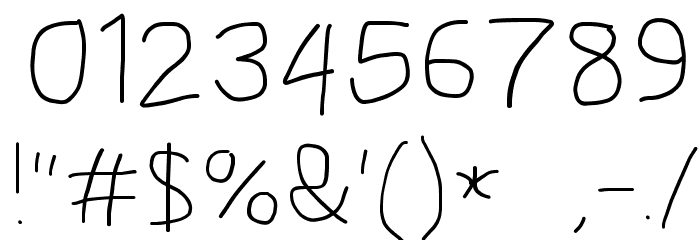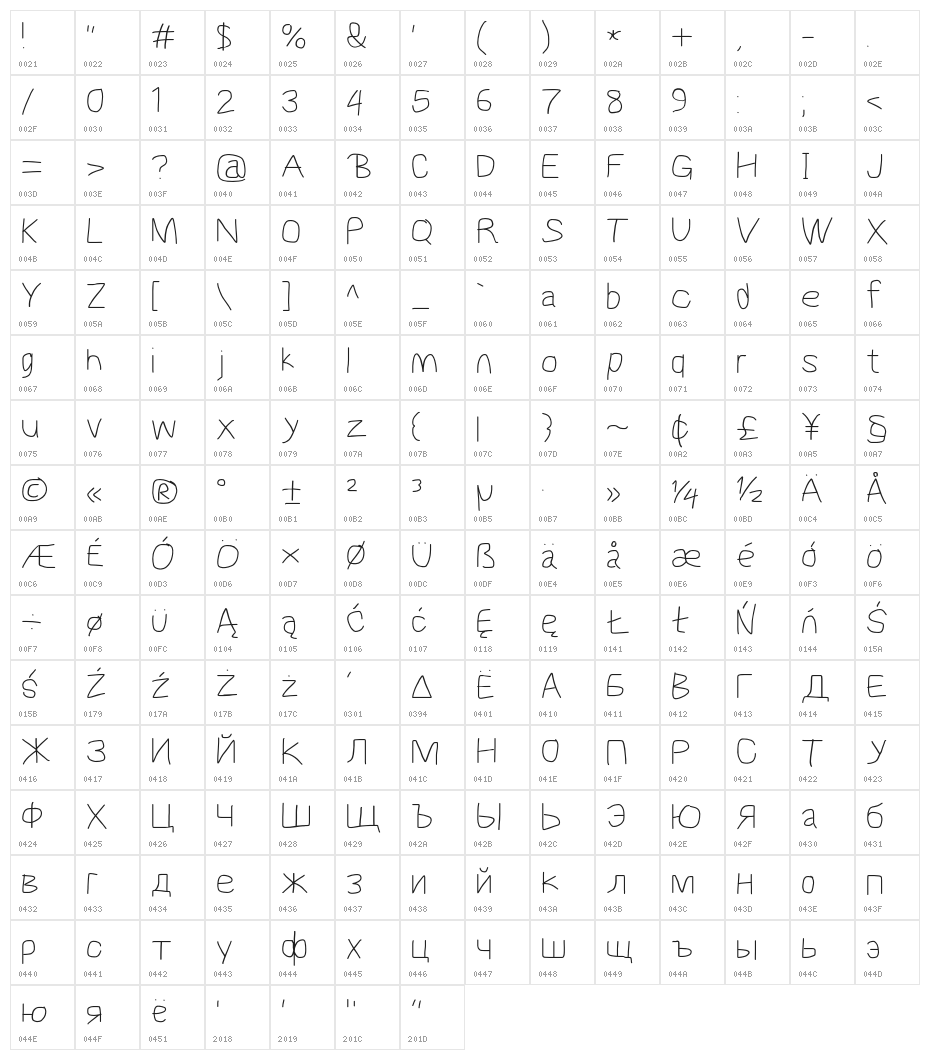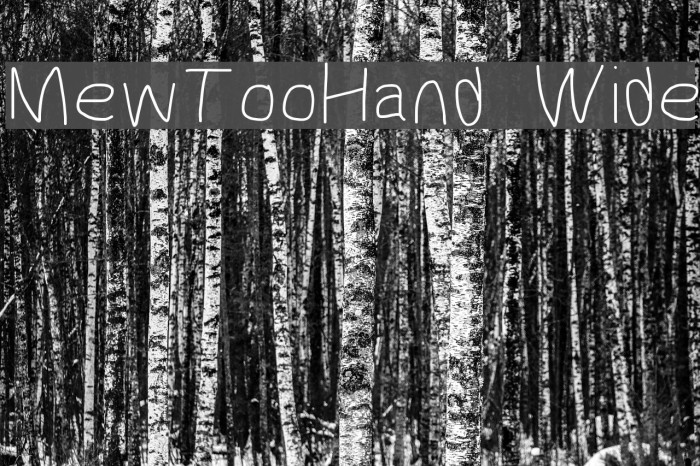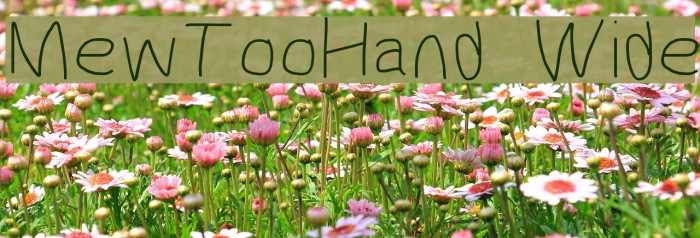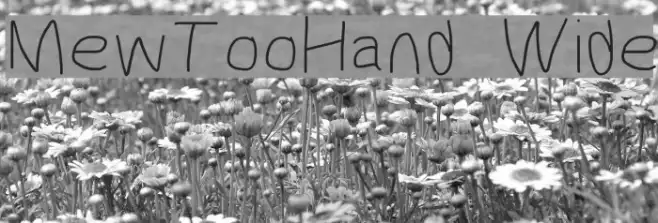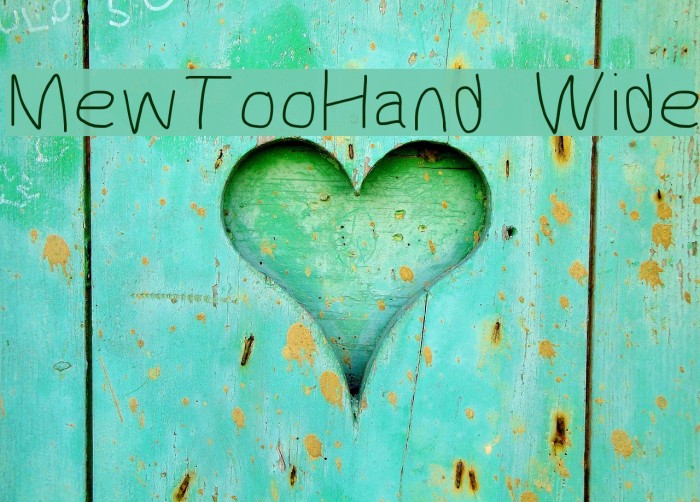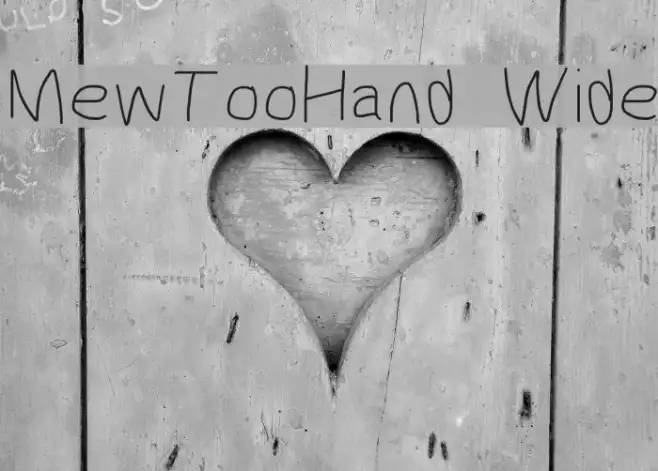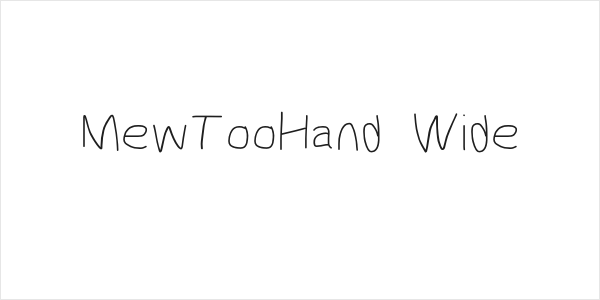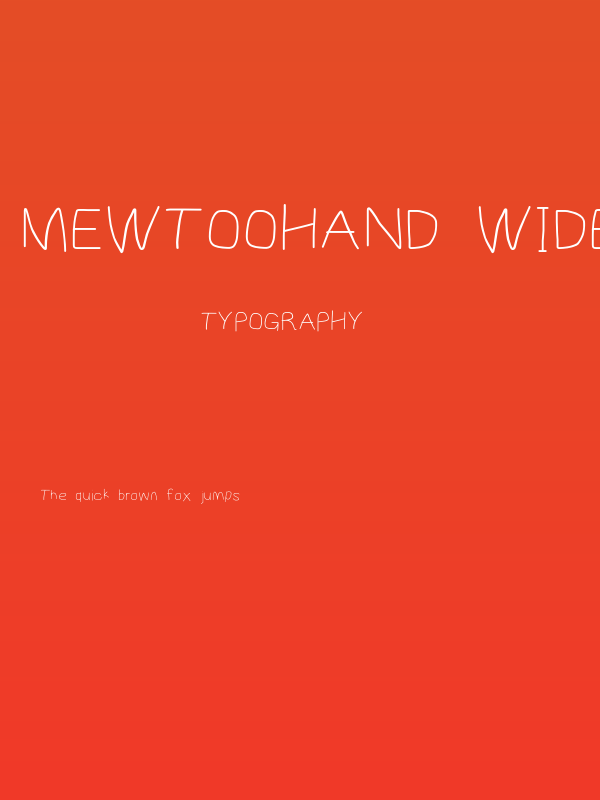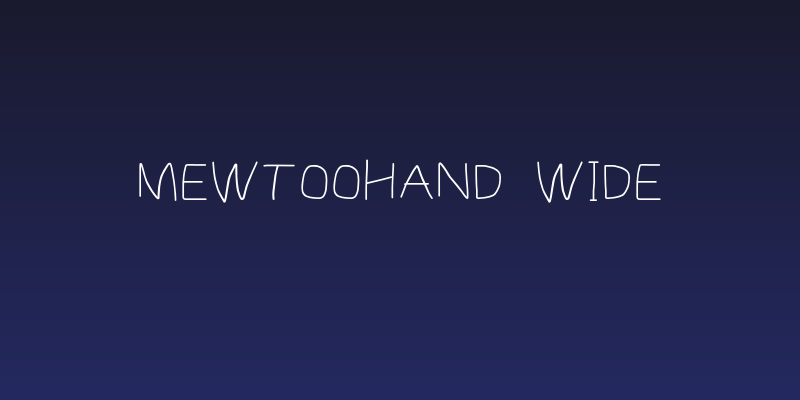
MewTooHand Wide Font
MewTooHand Wide Description
This font features a playful and casual handwritten style with a wide stance. The characters are slightly irregular, giving them a charming and approachable feel. The strokes are consistent in thickness, providing a uniform appearance across all characters. The uppercase letters are tall and slightly narrow, while the lowercase letters maintain a similar height, enhancing readability. Numbers and special characters follow the same stylistic approach, ensuring cohesion throughout. This font's relaxed and friendly design makes it suitable for projects that aim to convey a personal touch.